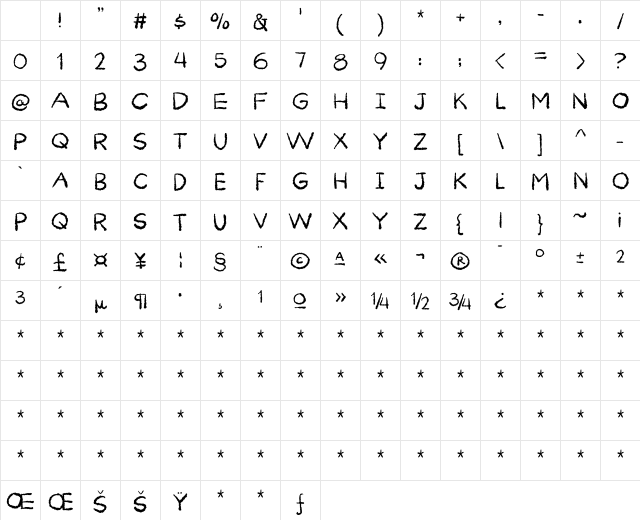
Complete Curiousness DEMO Regular glyph index. Displaying only characters natively supported by Curiousness DEMO Regular font.
Curiousness DEMO is a composed and adaptable typeface that performs quietly and consistently across a wide range of design contexts.